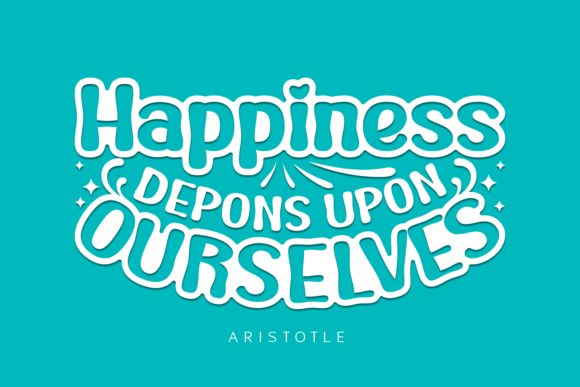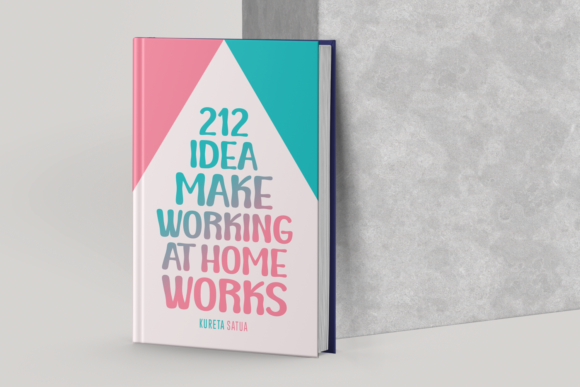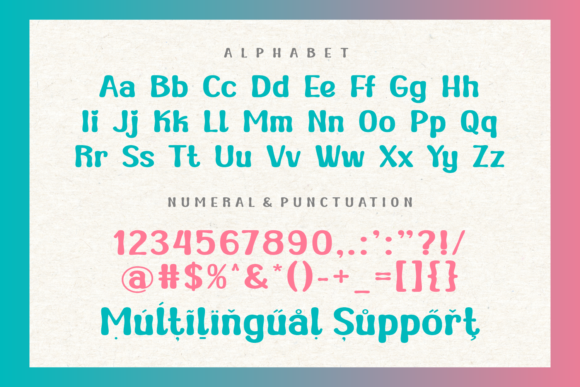
Introducing Booster Brother Font: The Ultimate Display Font for Designers and Crafters
Are you tired of using the same old fonts for your designs and crafts? Look no further! Booster Brother Font is here to revolutionize your creative projects with its friendly yet thick lettered display font. Whether you’re a designer, crafter, or simply someone who loves making greeting cards, this font is sure to become your new favorite go-to font.
What is Booster Brother Font?
Booster Brother Font is a unique and versatile display font that is perfect for a wide range of creative projects. Its thick letters and friendly vibe make it ideal for use in crafts, digital design, presentations, and even making greeting cards. The font’s bold and eye-catching design ensures that your projects will stand out from the crowd, making it perfect for designers and crafters who want to add a personal touch to their work.
Key Features of Booster Brother Font
- Thick Lettered Design: The font’s thick letters make it perfect for creating bold and eye-catching designs that grab attention.
- Friendly Vibe: The font’s friendly vibe makes it perfect for use in crafts, greeting cards, and other personal projects.
- Versatile: Booster Brother Font can be used for a wide range of creative projects, from digital design to presentations and crafts.
- Easy to Read: Despite its bold design, the font is easy to read, making it perfect for use in projects where clarity is important.
Uses of Booster Brother Font
Booster Brother Font is a versatile font that can be used for a wide range of creative projects. Here are some ideas to get you started:
- Crafts: Use Booster Brother Font to add a personal touch to your crafts, such as scrapbooking, card making, and DIY projects.
- Digital Design: The font is perfect for use in digital design projects, such as social media graphics, blog posts, and website headers.
- Presentations: Add a bold and eye-catching touch to your presentations with Booster Brother Font.
- Greeting Cards: Use the font to create personalized and unique greeting cards for special occasions.
Why Choose Booster Brother Font?
So why choose Booster Brother Font over other display fonts? Here are just a few reasons:
- Unique Design: The font’s unique design sets it apart from other display fonts, making it perfect for designers and crafters who want to add a personal touch to their work.
Tips for Using Booster Brother Font
Here are some tips for getting the most out of Booster Brother Font:
- Experiment with Different Sizes: The font looks great in a variety of sizes, so don’t be afraid to experiment to find the perfect size for your project.
- Pair with Other Fonts: Booster Brother Font pairs well with other fonts, so try pairing it with a script font or a sans-serif font to create a unique look.
- Use it for Headings: The font is perfect for use in headings and titles, making it a great choice for designers and crafters who want to add a bold and eye-catching touch to their work.
| Font Name | Booster Brother Font |
| Author | Rizkky (7NTypes) |
In conclusion, Booster Brother Font is a friendly yet thick lettered display font that is perfect for designers and crafters who want to add a personal touch to their creative projects. Its unique design, versatility, and ease of use make it a great choice for a wide range of projects, from crafts and digital design to presentations and greeting cards. So why not give it a try and see how it can elevate your creative projects?